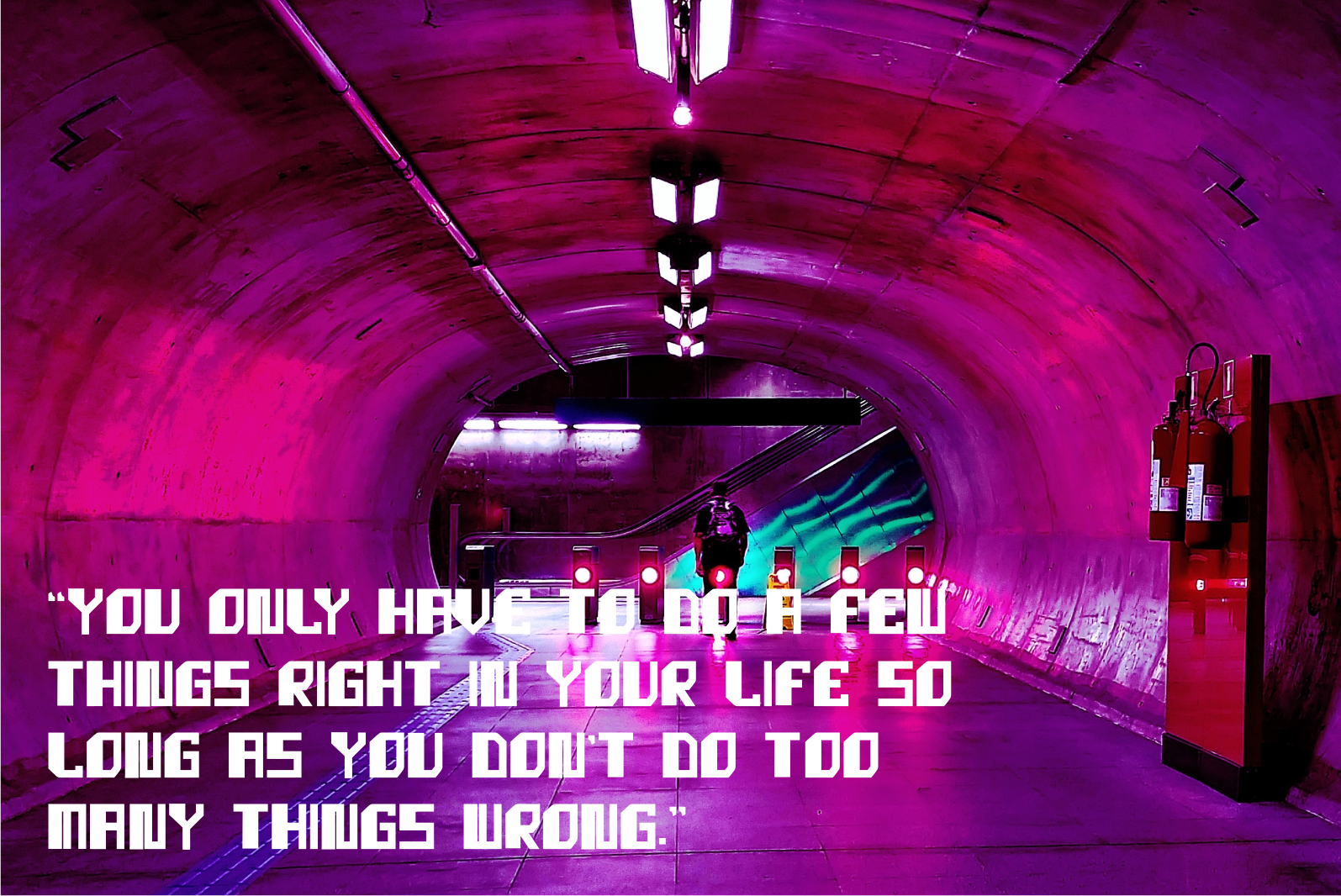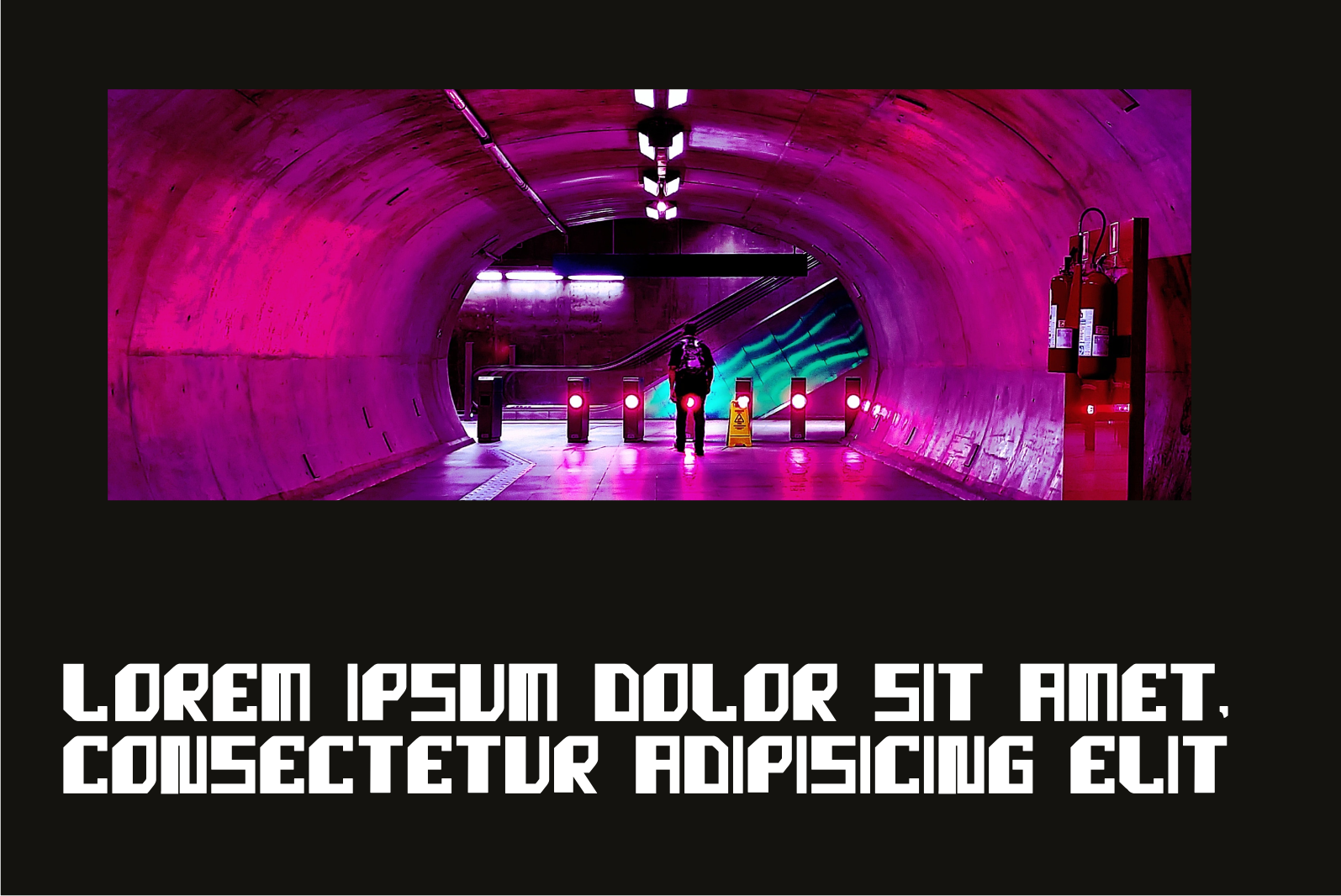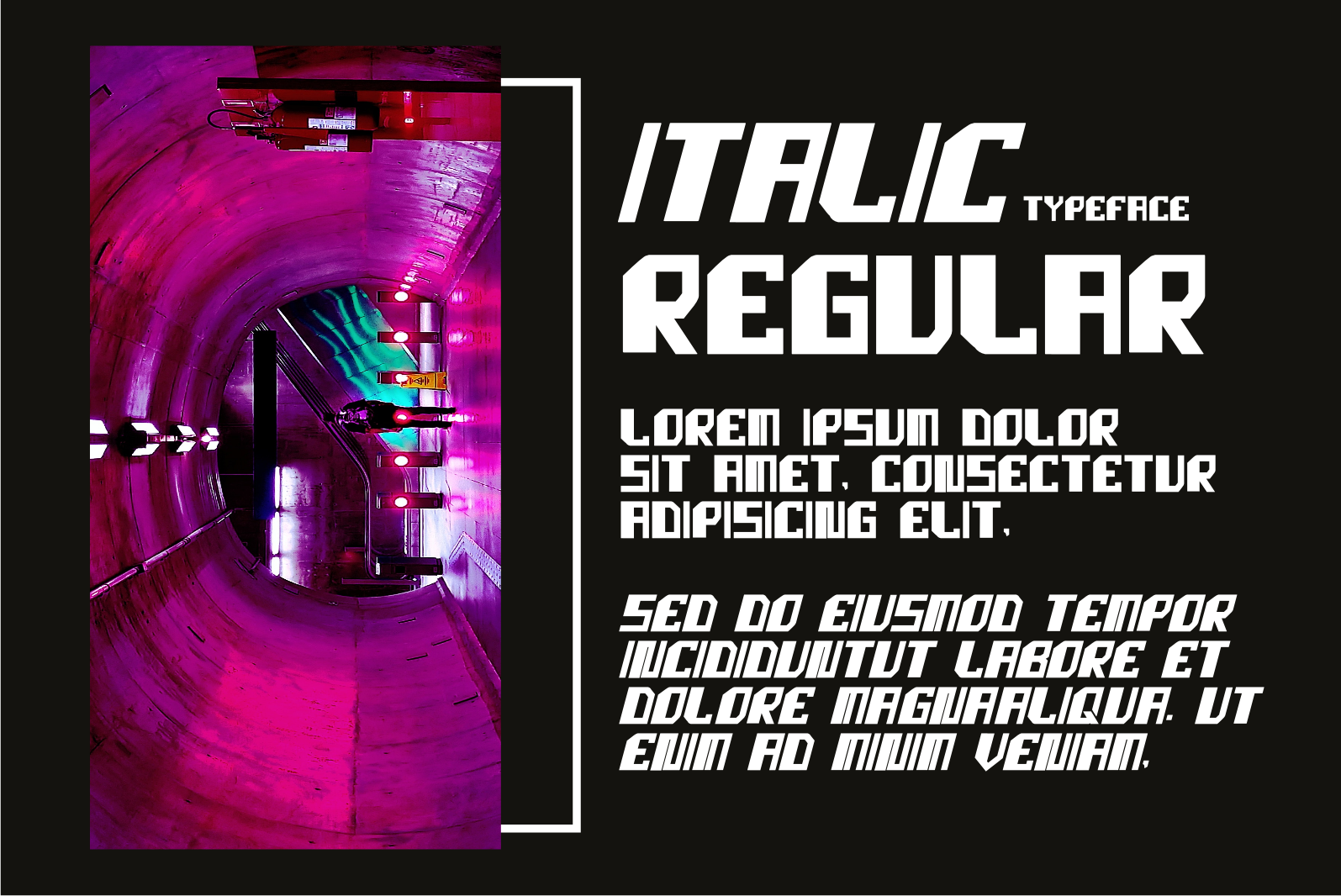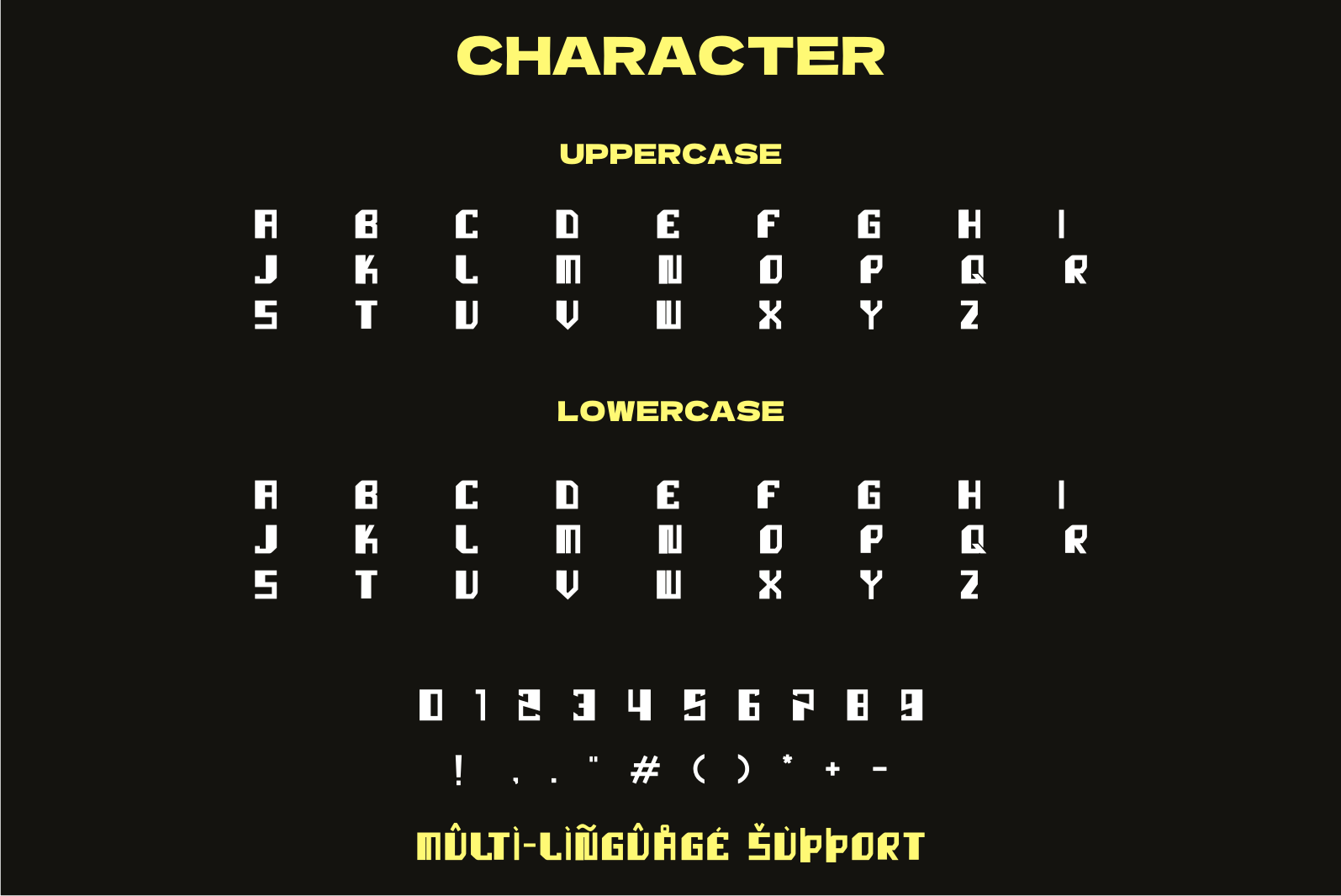
Basfros Font
Basfros Display Font
It’s an assertive and robotic styled display font. This font is ideal for writing web designs, business cards, or pretty much anything else that requires a futuristic touch.